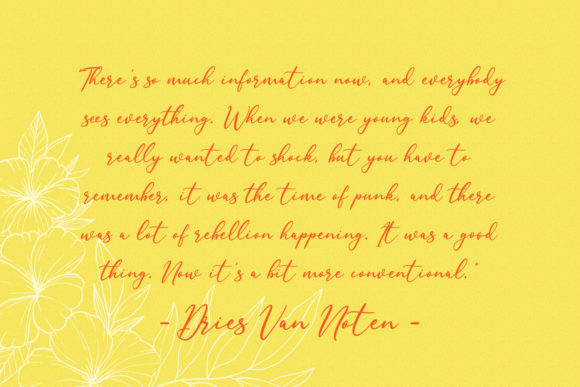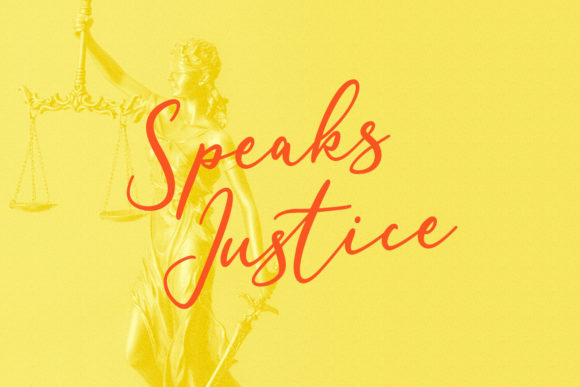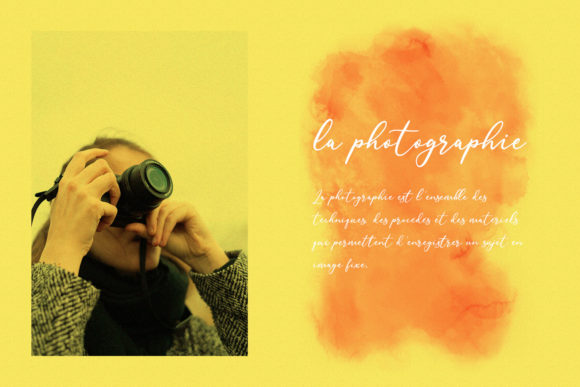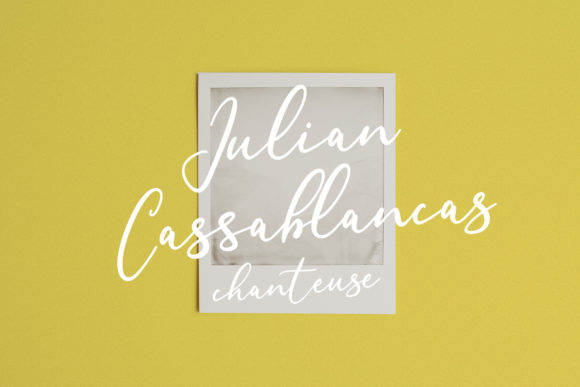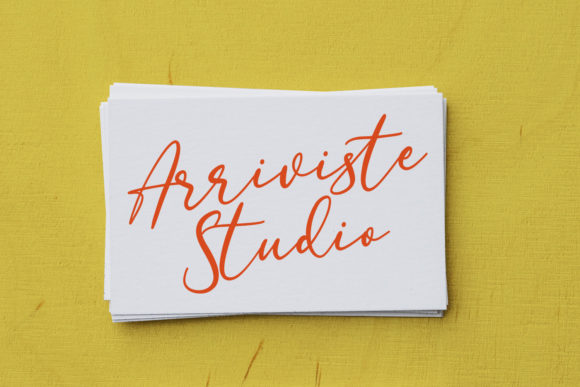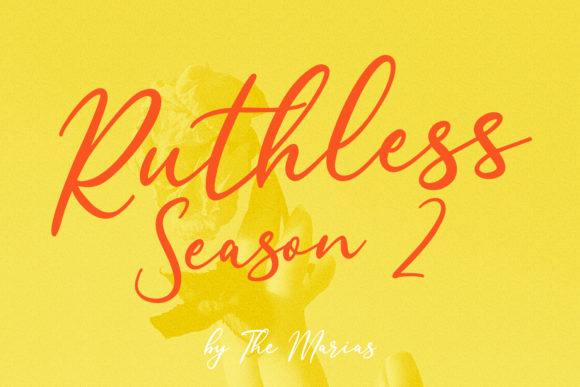
The Perfect Font for Your Next Creative Project
Have you ever been working on a design and suddenly, the perfect font pops into your head? It’s like a spark of creativity that sets your entire project off in the right direction. For many designers, this moment is what makes all the hard work worth it. But what happens when you can’t quite put your finger on the perfect font? This is where the Funtasty Font comes in – a relaxed and whimsical script font that’s sure to add a touch of romance to your next project.
This versatile font has a wide range of applications, from greeting cards to headlines, making it a valuable addition to any designer’s toolkit. With its unique and playful style, the Funtasty Font is guaranteed to add a personal touch to your work. Whether you’re a seasoned designer or just starting out, this font is sure to become a go-to choice for all your creative needs.
- Unique Characteristics: The font features a unique blend of playful and elegant elements, making it suitable for a wide range of design applications, from children’s books to luxury branding.
Funtasty Font Review
Overall, I’m impressed with Funtasty Font, but it’s not without its quirks. Let’s dive into what works well and what doesn’t.
- Funtasty Font has a unique and playful feel that’s perfect for fun, creative projects.
- The font is highly customizable, allowing you to adjust everything from letter spacing to font size.
- The font family is quite extensive, with multiple weights and styles to choose from.
- Funtasty Font is highly legible, even at small font sizes.
- The font may not be suitable for formal or professional projects, as it’s a bit too playful.
- The font can be a bit overwhelming if used in large blocks of text.
- The customization options can be a bit overwhelming, especially for beginners.
- The font may not render well on older systems or browsers.
Funtasty Font is a great choice for creative projects that need a playful, attention-grabbing feel. However, it may not be the best fit for formal or professional projects. With a bit of caution and careful usage, Funtasty Font can be a great addition to your design toolkit.
For the most effective use of Funtasty Font, use it for:
- Eye-catching headings and titles.
- Adding a playful touch to your designs.
- Creating a fun and youthful atmosphere.
Remember to balance Funtasty Font with other fonts to avoid overwhelming your design.